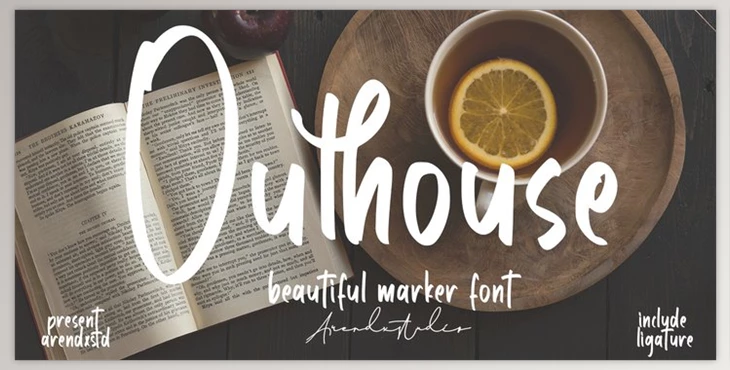
The outhouse is a Handwritten markers font that appears beautiful and neat to see, so it is suitable to use in your design-related projects
The outhouse was a feature-rich OpenType product like stylistic alternatives, stylistic sets, and ligatures that are suitable for posters, logotypes badges, book cover packaging, T-shirt design, and additional.
- Character Set A-Z
- Punctuations & Numerals (OpenType Standard)
- Accents (Multilingual characters)
- Ligature